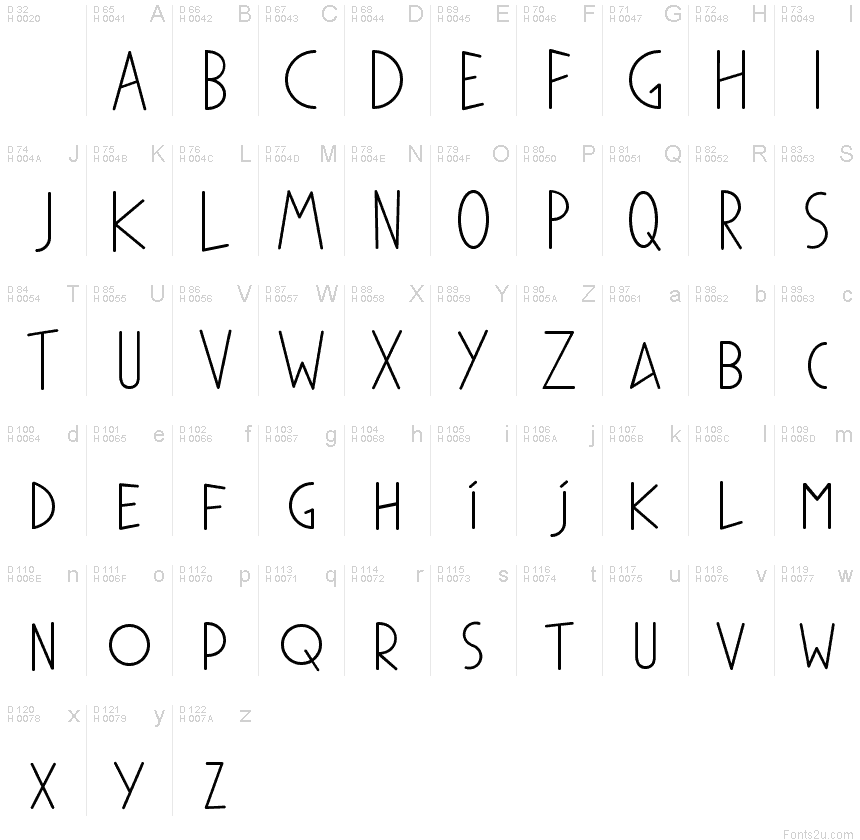
Phylactere by Florent Courtaigne is a free hand-drawn caps display font with tall, wiry letters. Its nearly monoline strokes bend gently, and the uneven proportions keep the forms personal rather than geometric. Broad curves meet sharp diagonals across the lettering.
It can lend fashion titles a spare, sketchbook quality, yet it also suits poster work for arts events. The same drawn line fits album covers and boutique packaging. In branding, its narrow silhouettes turn a name into a loose signature.